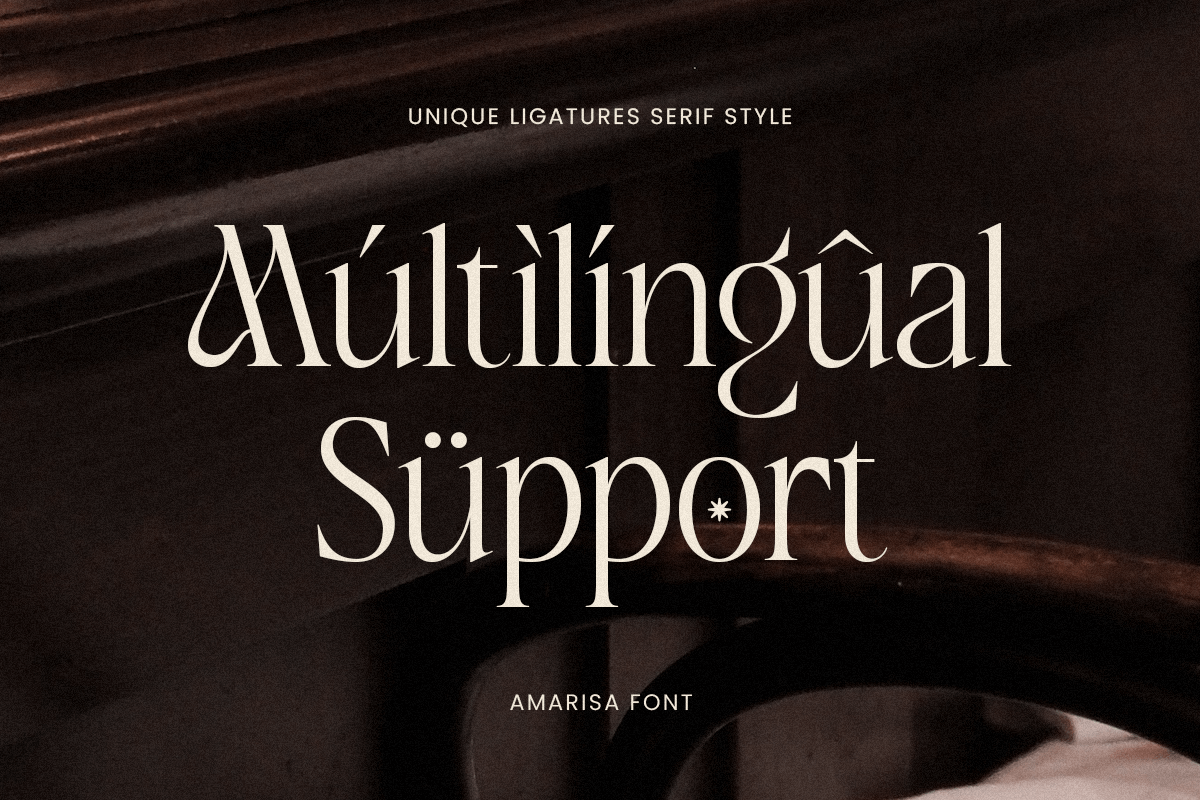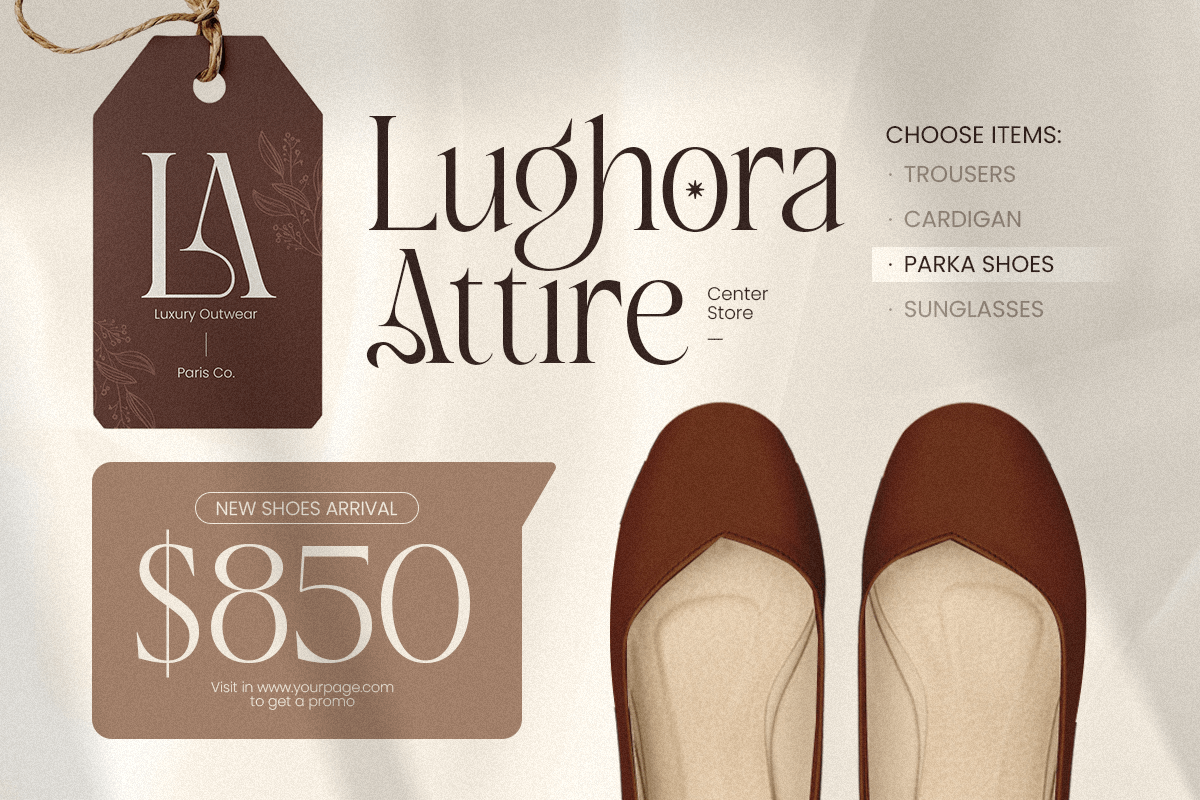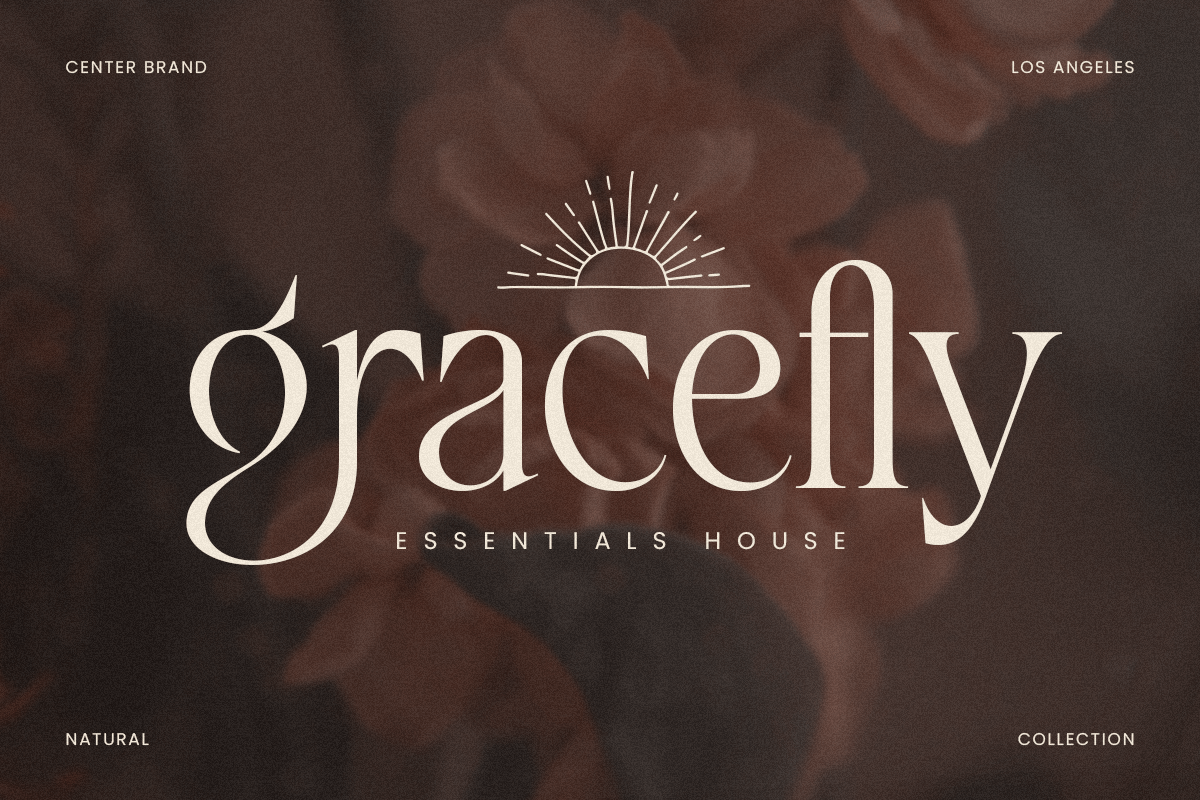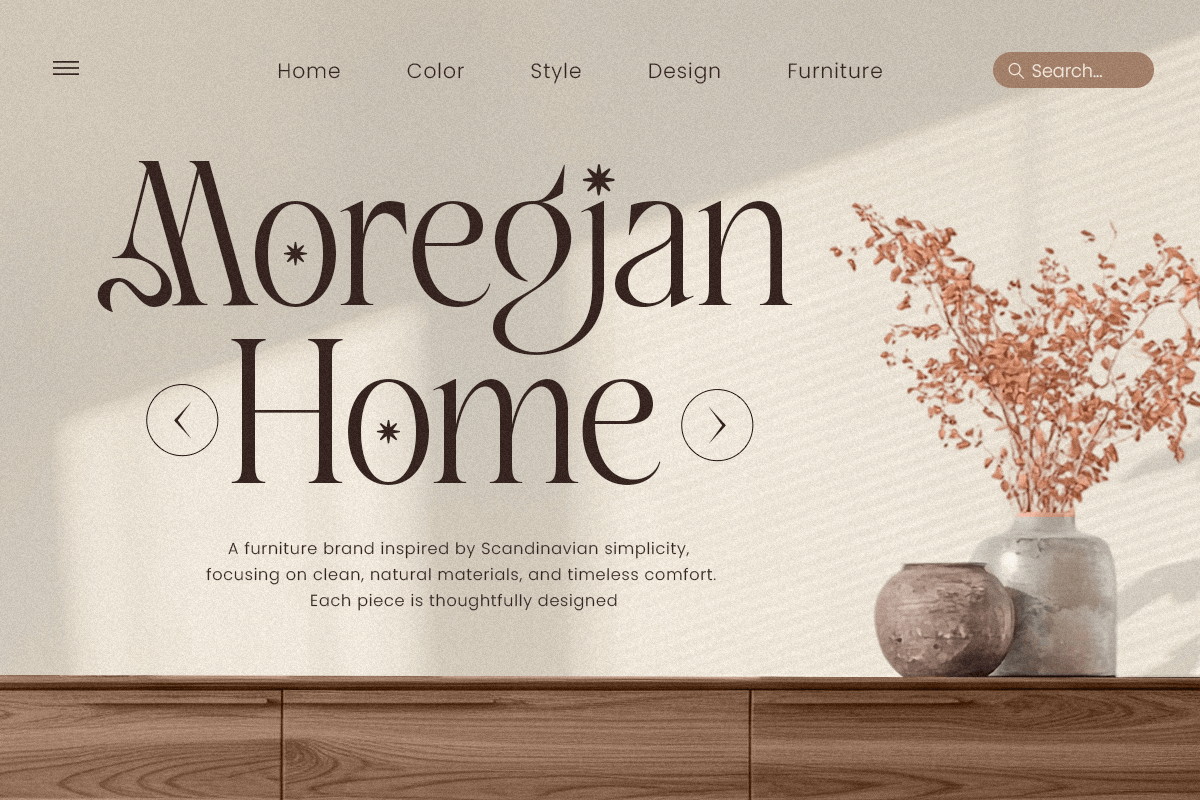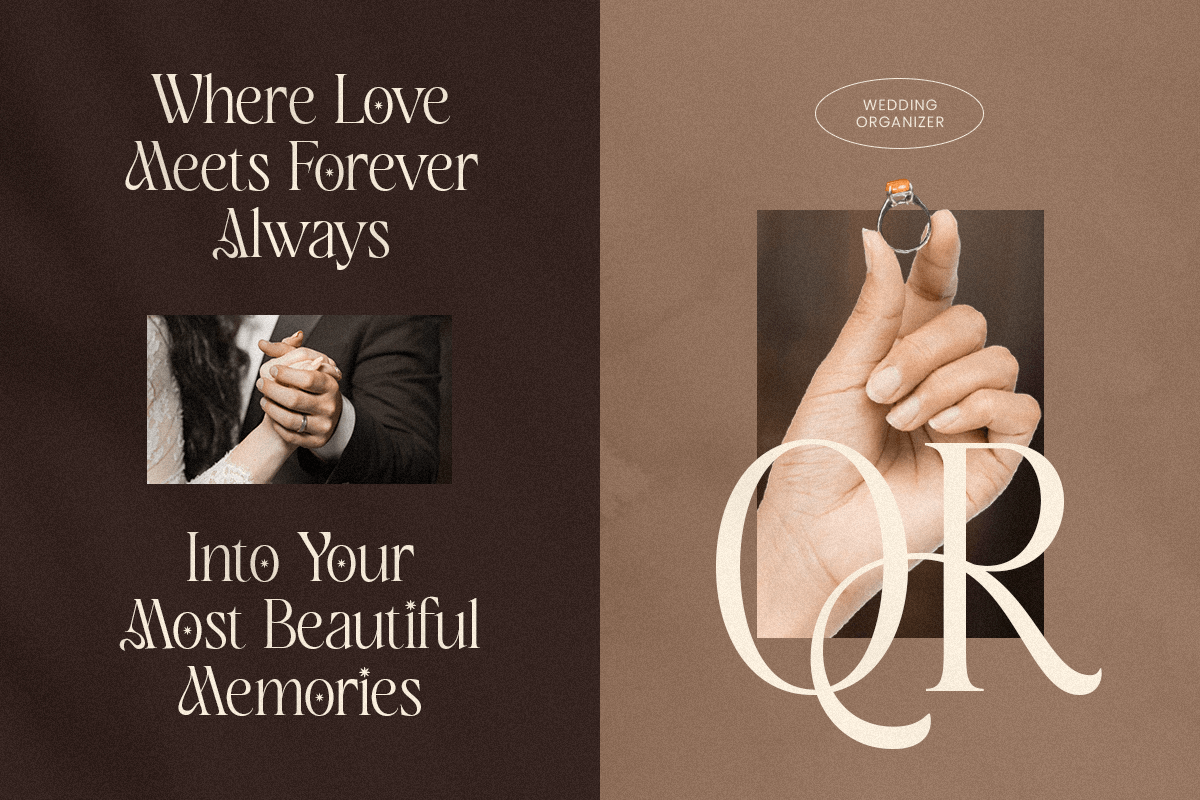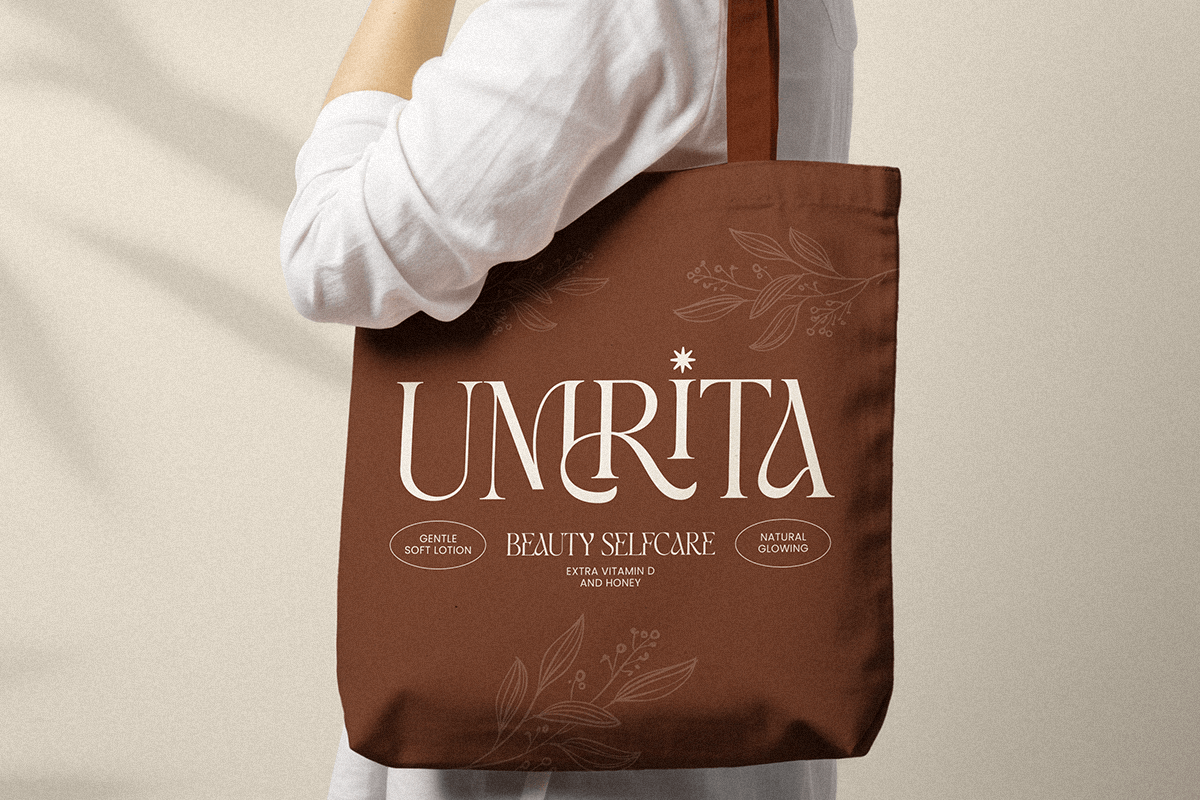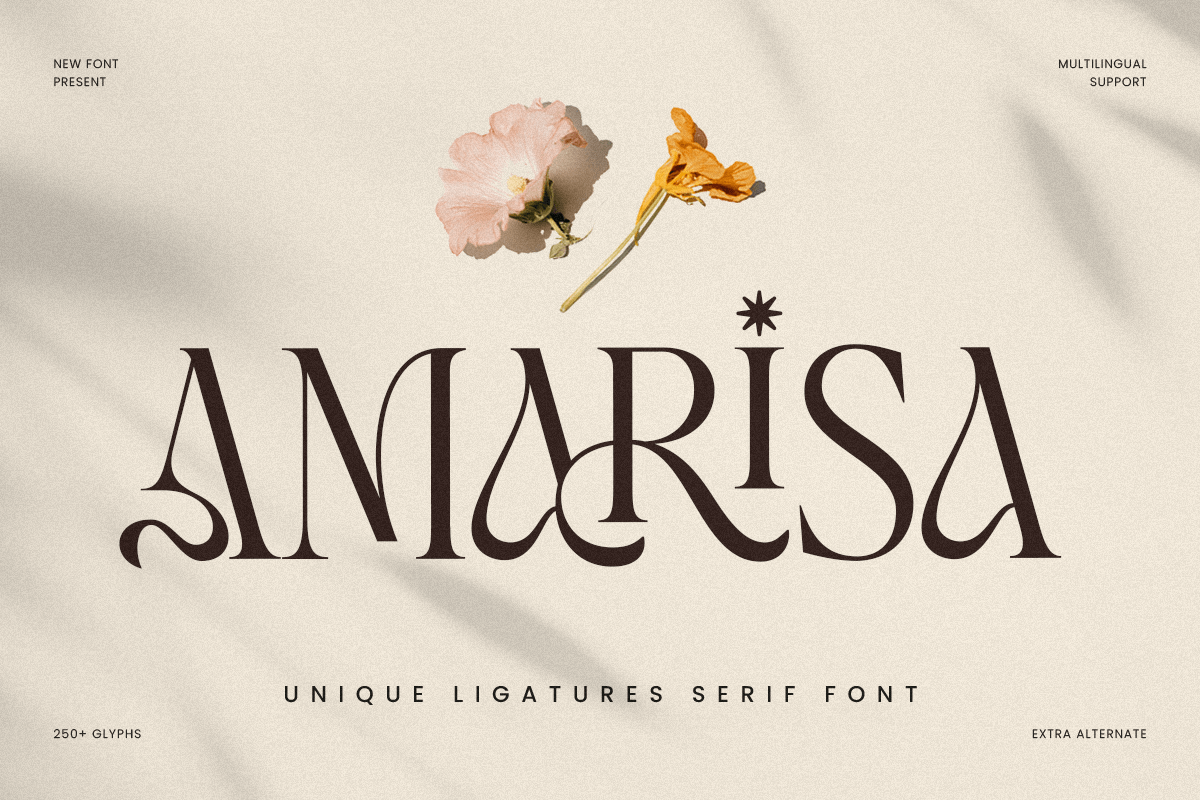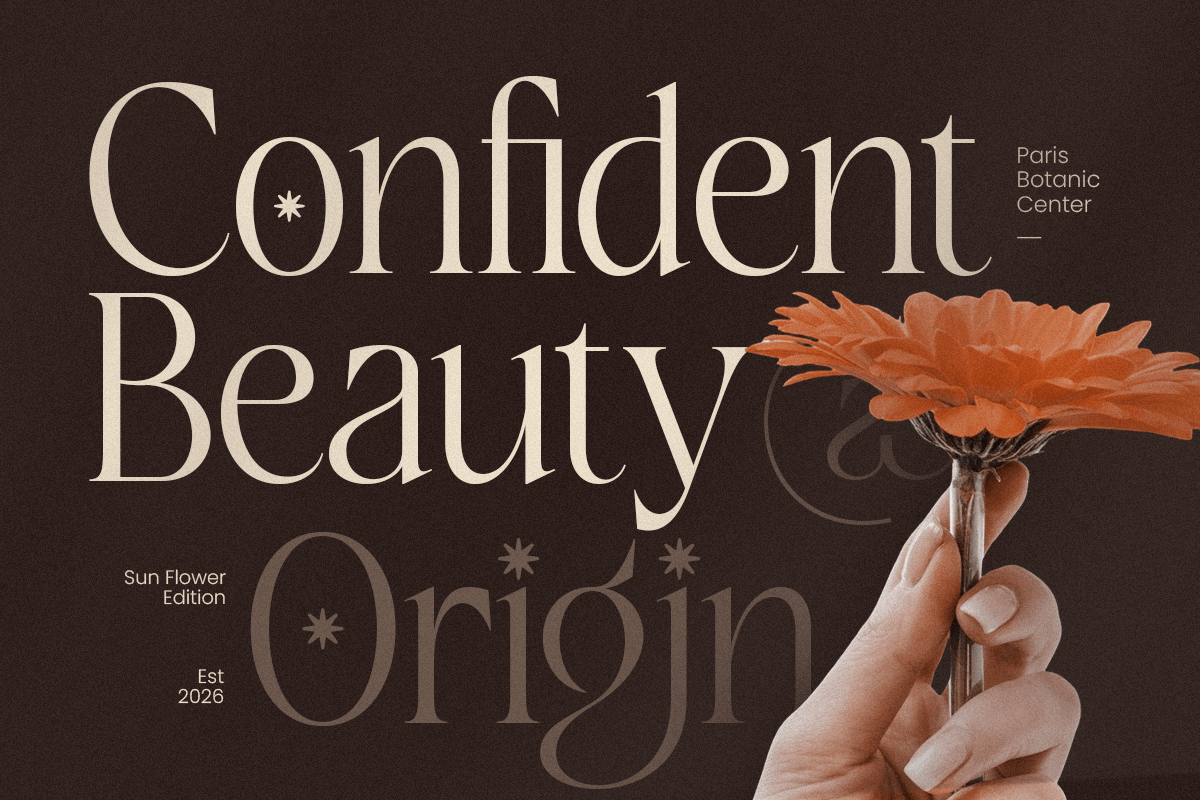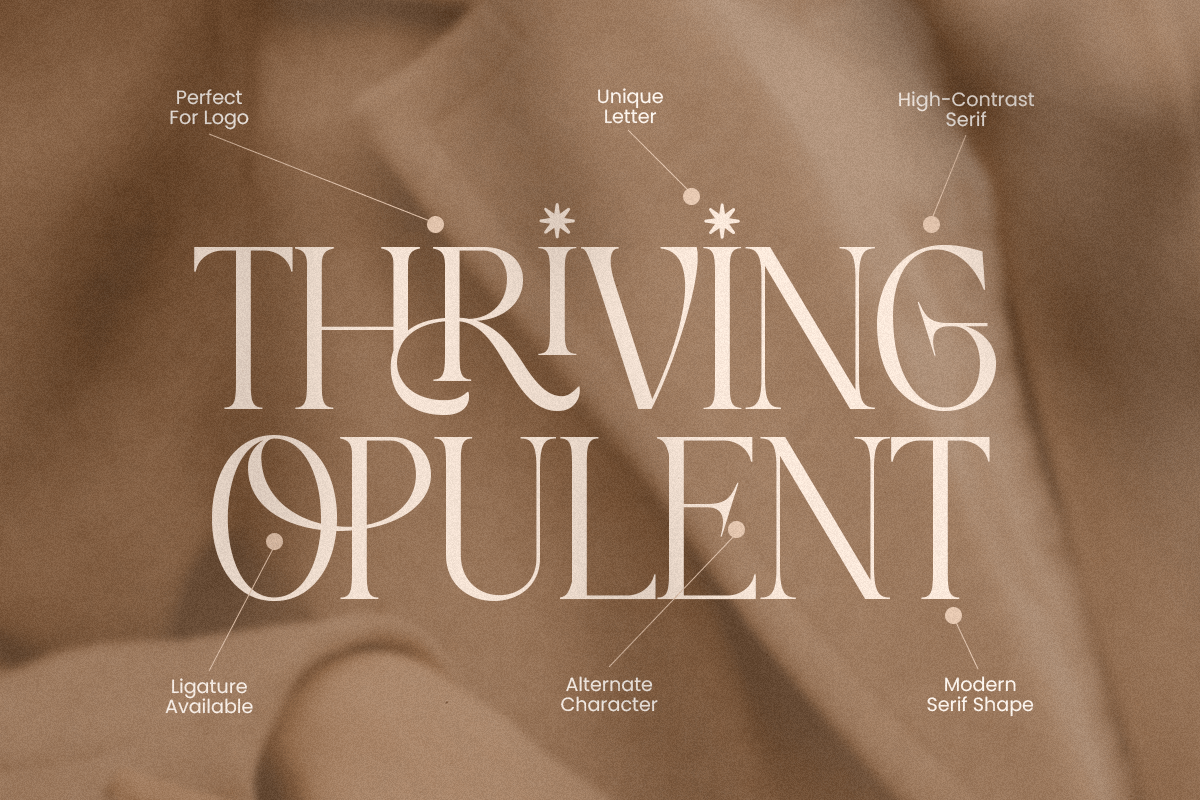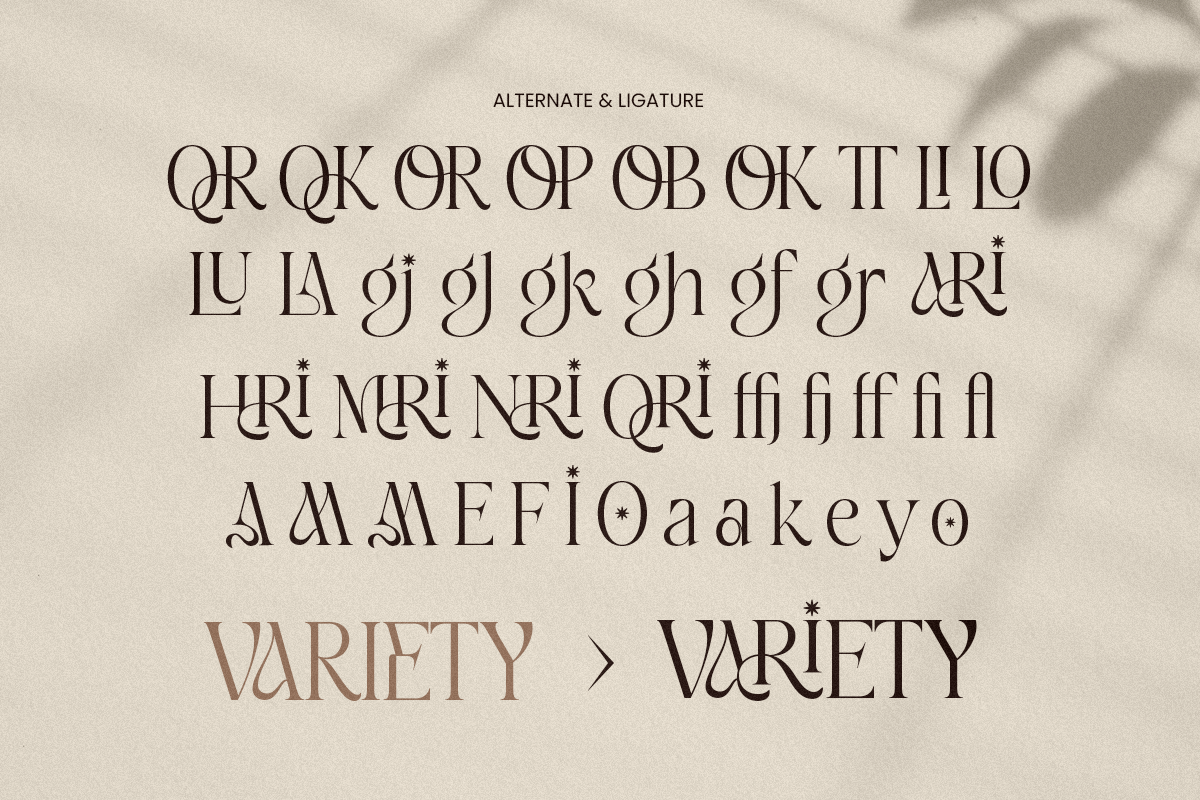
Amarisa - Luxury Editorial Font
AMARISA is inspired by luxury editorial typography and modern boutique branding—where elegant serif structure and subtle ligature connections create a bespoke visual signature. The design focuses on graceful rhythm, refined proportions, and premium detail to support stylish identities with timeless sophistication.
AMARISA Font Features:
Unique ligature serif letterforms with refined premium character
Elegant ligature combinations for custom logo and wordmark design
Perfect for branding, editorials, packaging, and upscale headlines
High readability for stylish layouts and premium communication
Uppercase, lowercase, numerals, and punctuation included
OpenType features for polished professional typesetting
Logos, wordmarks, and premium brand identity systems
Fashion, beauty, skincare, fragrance, and boutique branding
Editorial layouts, magazine covers, lookbooks, and headlines
Luxury packaging, labels, invitations, and elegant stationery
Social media campaigns, websites, presentations, and marketing assets
Afrikaans, Albanian, Asu, Basque, Bemba, Bena, Breton, Chiga, Cornish, Dutch, English, Estonian, Filipino, Finnish, Friulian, Galician, German, Gusii, Indonesian, Irish, Italian, Kabuverdianu, Kalenjin, Kinyarwanda, Luo, Luxembourgish, Luyia, Machame, Makhuwa-Meetto, Makonde, Malagasy, Manx, Morisyen, North Ndebele, Nyankole, Oromo, Portuguese, Quechua, Romansh, Rombo, Rundi, Rwa, Samburu, Sango, Sangu, Scottish Gaelic, Sena, Shambala, Shona, Soga, Somali, Spanish, Swahili, Swedish, Swiss, and more.
Elevate your typography with AMARISA—a unique ligature serif font made for elegant, premium branding. ✨